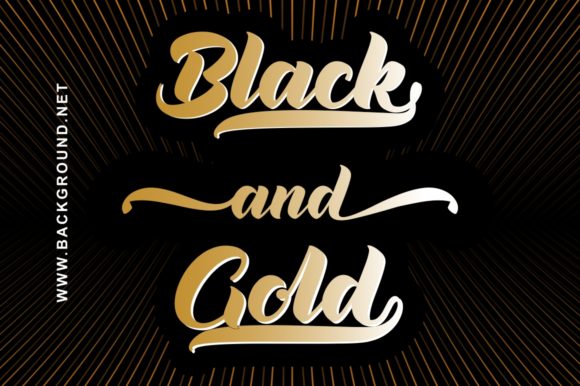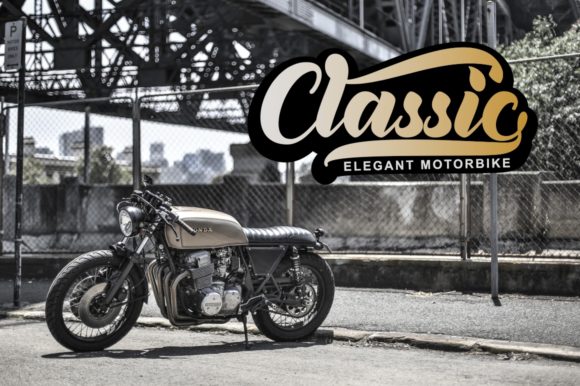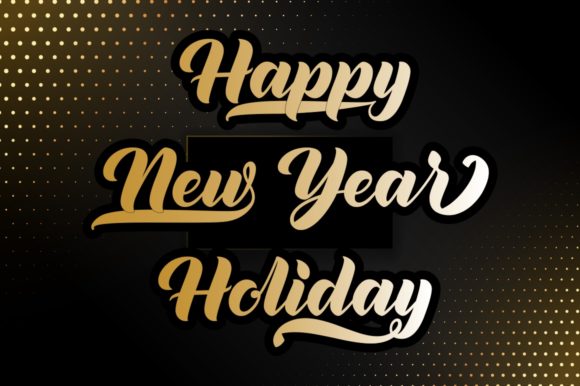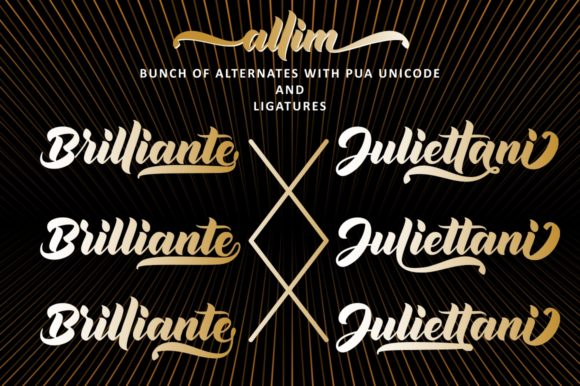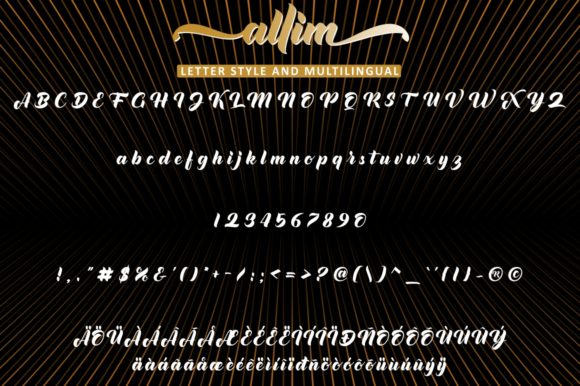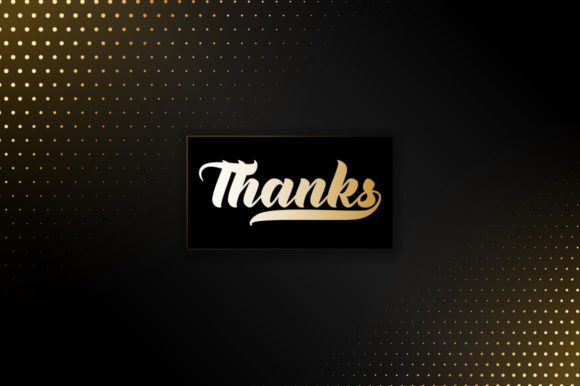
HomeScript FontsAllim Font Script Fonts Allim Font FacebookXPinterestWhatsApp Allim Font Poster 2 Allim Font Poster 3 Allim Font Poster 4 Allim Font Poster 5 Allim Font Poster 6 Allim Font Poster 7 Allim Font Poster 8 About Allim Font Allim is an equally sweet and cool script with a bold vibe. Get inspired by its unique charm! DOWNLOAD ON CREATIVE FABRICAThis font is sold and delivered by Creative Fabrica. Font Canyon may earn a commission if you buy through this link. People also explored Amelia Font Crazy Maisy Font Simple Handmade Font Love Christmas Font Nichea Rubean Carbo-kissing Font Sublimation White Coffee Mug Mockup Superme Font Latitude Sans 320 0 TagsAllim Font Previous articleFresHot FontNext articleAdellion Font LEAVE A REPLY Cancel reply Comment: Please enter your comment! Name:* Please enter your name here Email:* You have entered an incorrect email address! Please enter your email address here Website: Save my name, email, and website in this browser for the next time I comment. Personal Use Free Zalitta Personal Use Free Read more about this font Hello Holiday Personal Use Free Read more about this font Rellista Script Personal Use Free Read more about this font Alphakind Personal Use Free Read more about this font BLOG Using Fonts in Digital Marketing: Tips to Strengthen Your Brand Identity In the realm of digital marketing, every visual element plays a crucial role in shaping a brand's identity, and fonts are no exception. The... Exploring Font Trends To increase your work productivity, choose the most readable fonts. Free vs Paid Fonts: Why Investing in Premium Fonts Is Worth It